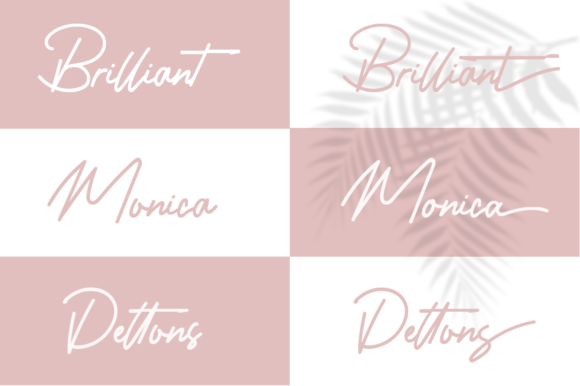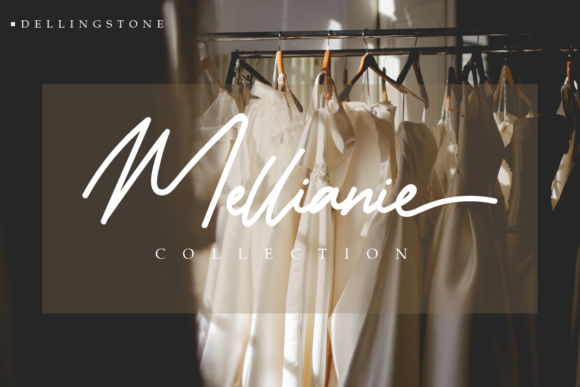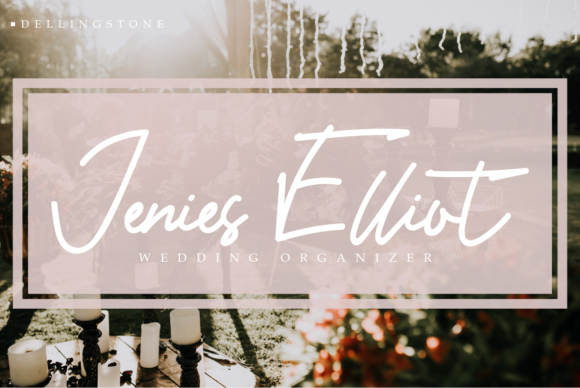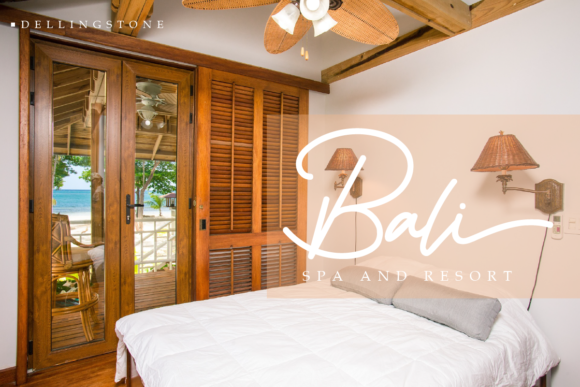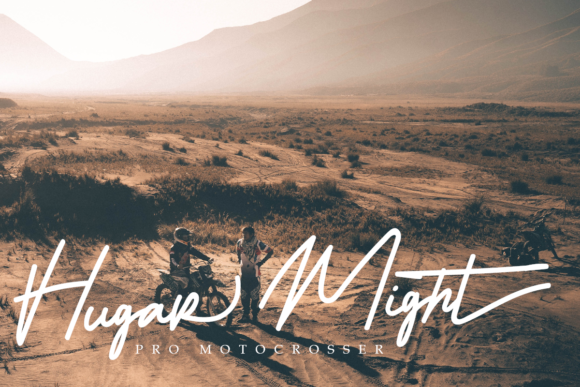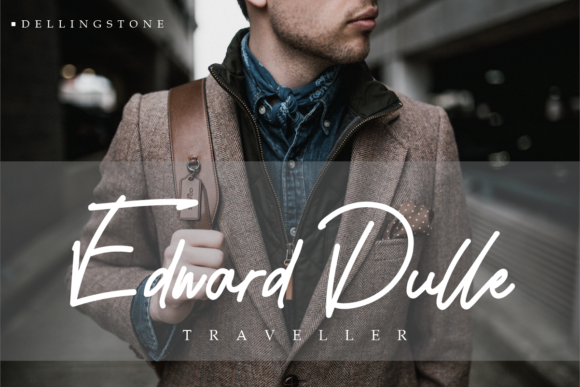
Dellingstone Font: Elevate Your Design with a Stylish Script
Dellingstone is a stylish script font that can instantly transform any design project into a standout masterpiece. With its unique and authentic vibe, this font is perfect for designers and crafters looking to add a touch of elegance and sophistication to their work. In this article, we’ll explore the features and benefits of Dellingstone Font, and how it can inspire your next design project.
The Unique Characteristics of Dellingstone Font
Dellingstone Font boasts a distinctive script style that sets it apart from other fonts. Its elegant and flowing lines create a sense of movement and fluidity, making it perfect for designs that require a touch of dynamism. The font’s unique characteristics include:
- Handwritten feel: Dellingstone Font has a handmade quality that gives it a personal and authentic touch.
- Flowing lines: The font’s connected letters create a sense of flow and continuity, making it perfect for headings, titles, and quotes.
- Elegant and sophisticated: Dellingstone Font exudes a sense of luxury and refinement, making it ideal for high-end designs and branding projects.
Dellingstone Font is a versatile font that can be used in a variety of design projects, from branding and advertising to packaging and digital media. Here are some inspiring ways to use Dellingstone Font:
- Logos and branding: Create a memorable and stylish logo that stands out from the crowd with Dellingstone Font.
- Wedding and event design: Add a touch of elegance and sophistication to your wedding or event designs with Dellingstone Font.
- Packaging design: Elevate your packaging design with Dellingstone Font, perfect for luxury brands and high-end products.
- Digital media: Use Dellingstone Font in your digital media projects, such as social media graphics, blog posts, and website headers.
Tips for Using Dellingstone Font
To get the most out of Dellingstone Font, here are some tips to keep in mind:
- Use it sparingly: Dellingstone Font is a statement font, so use it sparingly to avoid overwhelming your design.
- Pair it with a neutral font: Pair Dellingstone Font with a neutral font to create contrast and visual interest.
- Experiment with colors: Try out different colors and textures to add depth and dimension to your design.
Dellingstone Font is a stylish script font that can elevate any design project into a standout masterpiece. With its unique and authentic vibe, this font is perfect for designers and crafters looking to add a touch of elegance and sophistication to their work. Whether you’re working on a branding project, wedding design, or packaging design, Dellingstone Font is sure to inspire your next design project.
Get Creative with Dellingstone Font